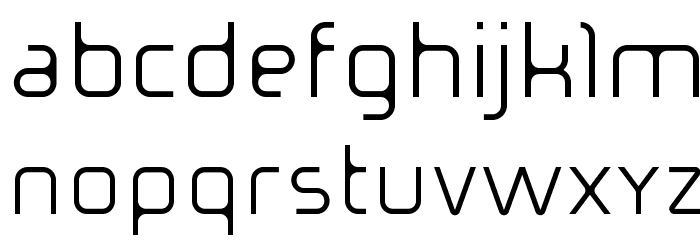
ideoma MIAGUIII Font
This font features a modern and geometric design, characterized by its clean lines and rounded edges. The uppercase letters are uniform in height, with a consistent stroke width that gives a balanced and harmonious appearance. The lowercase letters maintain the same geometric style, with a slight variation in height and width that adds a touch of uniqueness. The numerals are designed to match the overall aesthetic, with a clear and legible form that complements the alphabet. The special characters are seamlessly integrated, maintaining the same geometric and modern feel. This font is versatile and suitable for a variety of design projects, offering a contemporary and sleek look.
A modern, geometric font with clean lines and rounded edges.